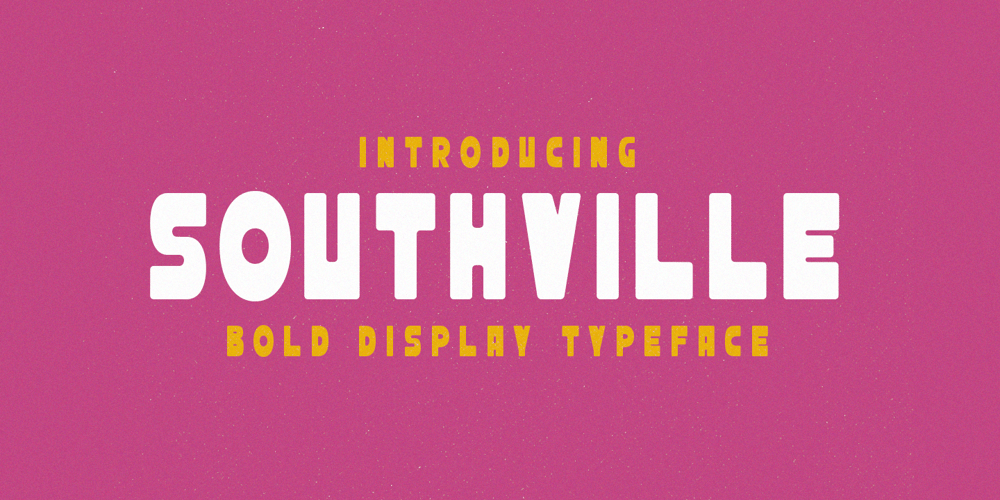
Southville Font Family was designed by Gustian Agung Asprilla and published by Rillatype. Southville contains 1 styles and family package options. Introducing, Southville! a bold and fun display font. it’s bold characteristic and round at the edges makes this font bold and brave but have soft and fun charm. this font is perfect for books, packaging, branding, make up, novel, label, etc.Features : uppercase & lowercase numbers and punctuation multilingual PUA encoded